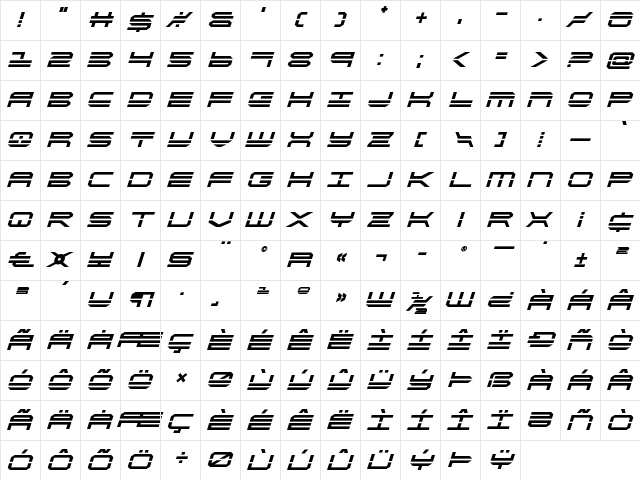
QuickStrike Bold Italic Bold Italic
Design Context for QuickStrike Bold Italic Typeface
QuickStrike Bold Italic takes a measured approach to typography — its balanced proportions and neutral character make it a reliable workhorse for both digital and print work. The slanted form adds forward momentum and visual energy. The heavy weight commands attention and anchors typographic hierarchies.